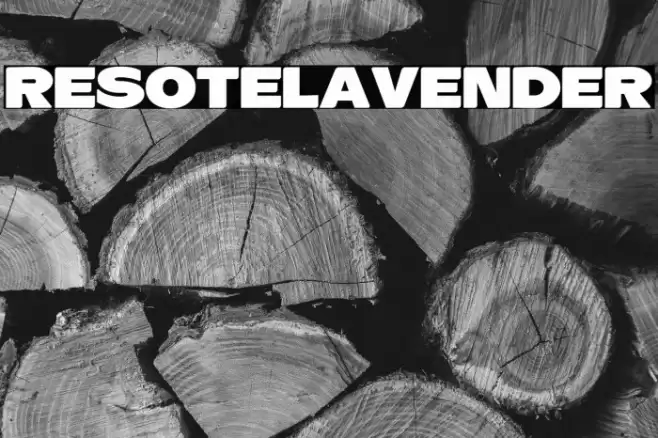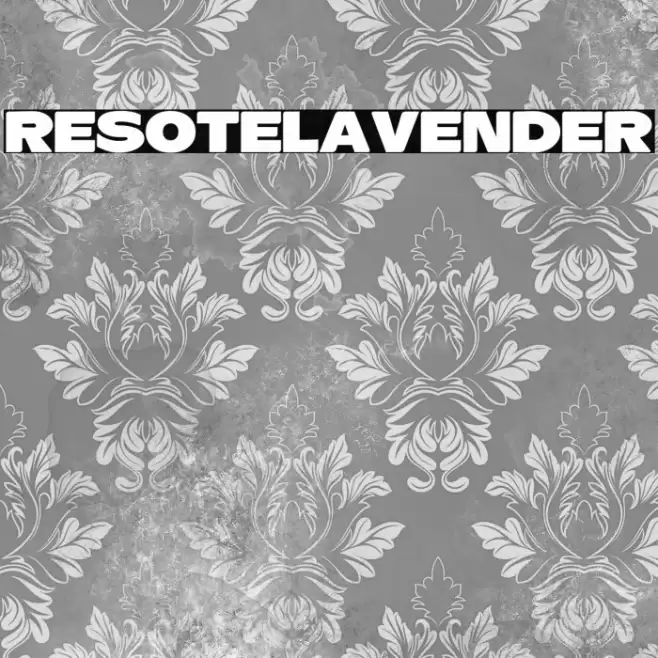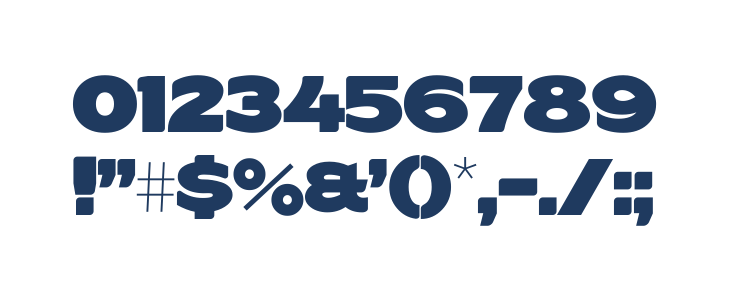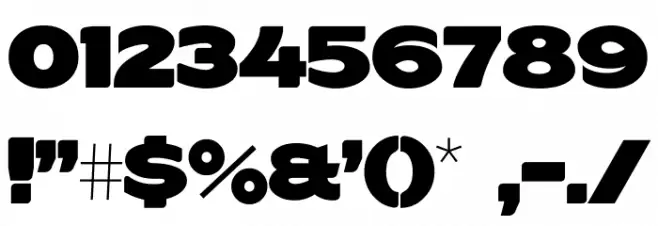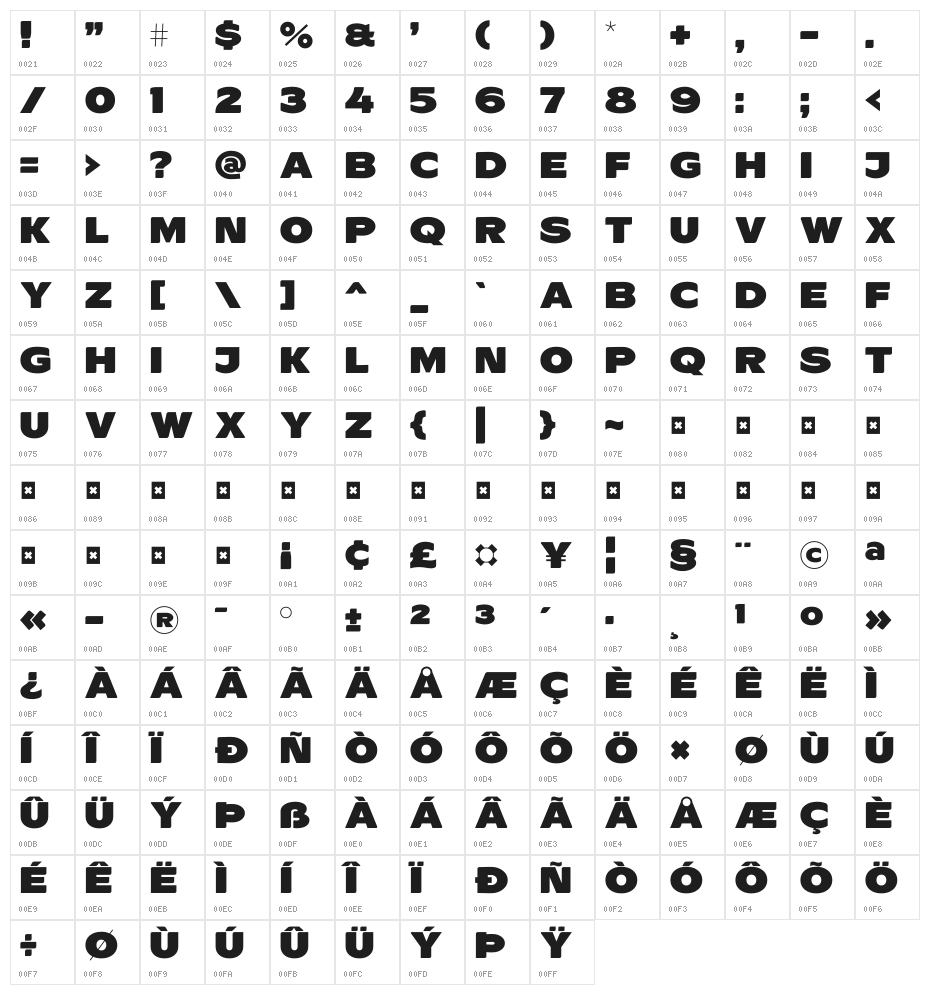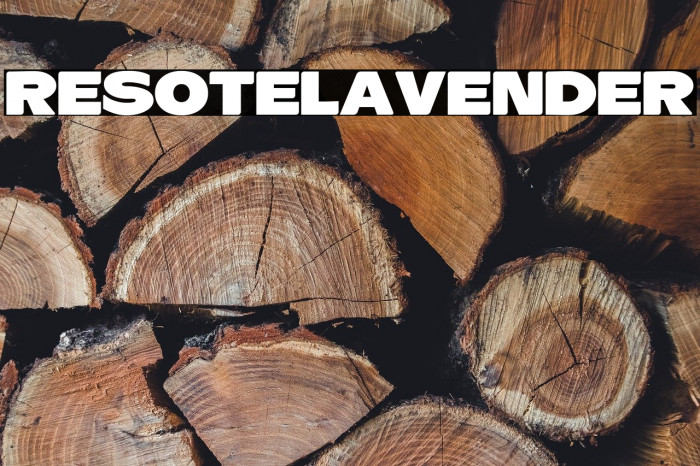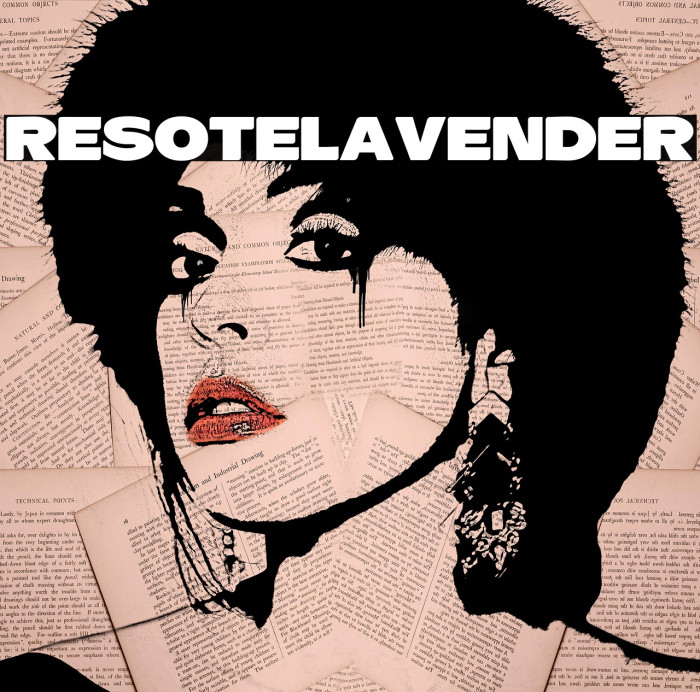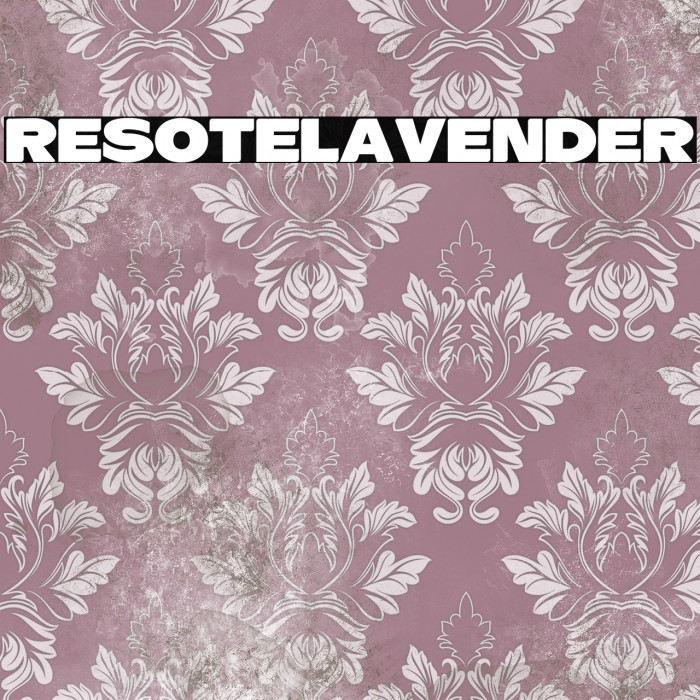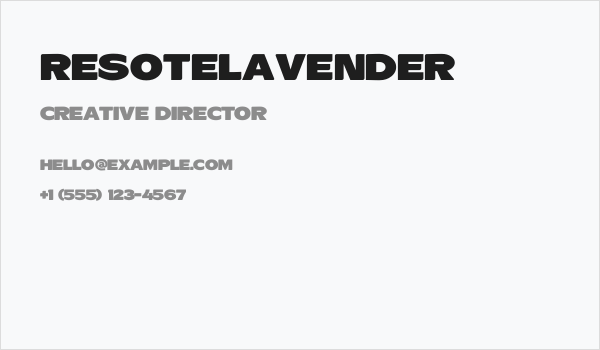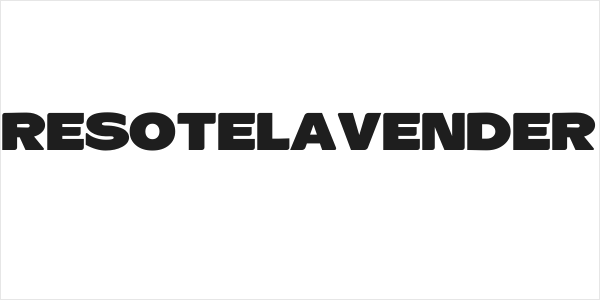
ResotELavender Font
ResotELavender Description
This font features bold, geometric letterforms with a strong presence. The characters are uniformly thick, creating a powerful and impactful look. The uppercase letters are particularly striking, with a consistent weight that emphasizes their boldness. The numbers and special characters maintain the same robust style, ensuring a cohesive appearance across all text elements. The font's design is modern and assertive, making it ideal for projects that require a strong visual impact.
A bold, geometric font with a strong, modern presence from Regular fonts.
- Proposed Projects: Ideal for branding, headlines, posters, and any design requiring a bold statement.